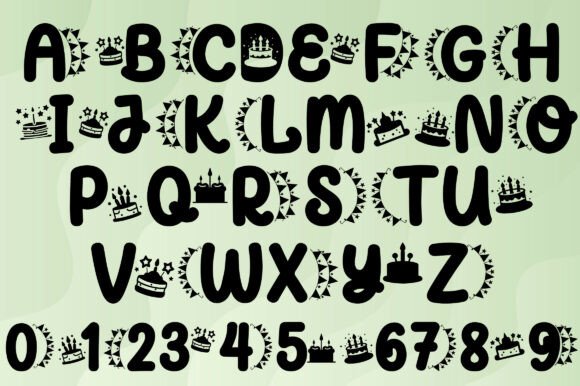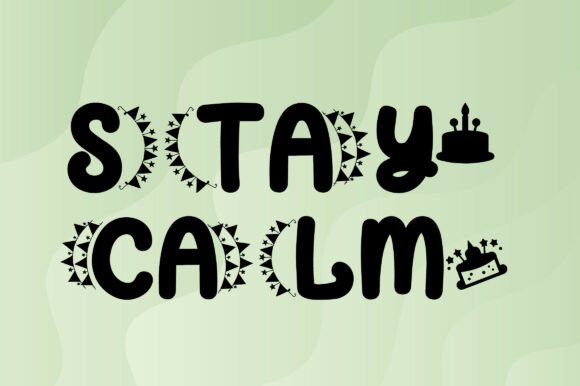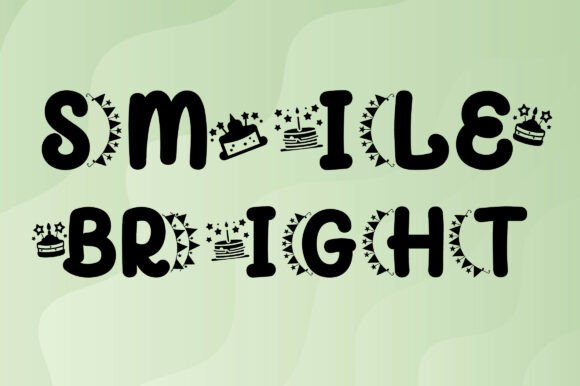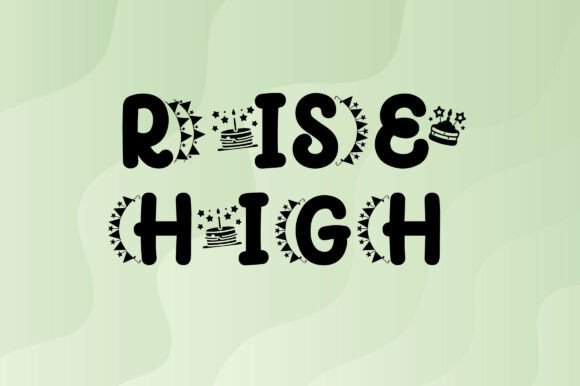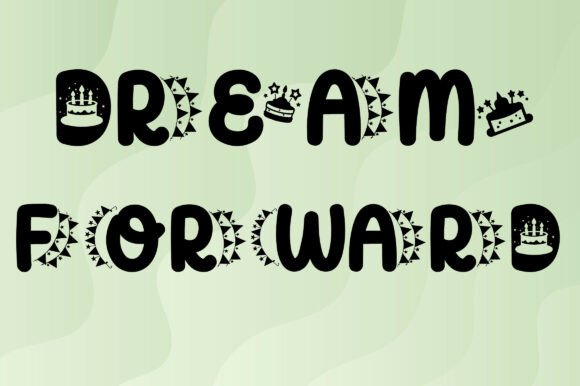
Introducing Annann Font: The Ultimate Decorative Birthday Party Font
Are you looking for a font that can add a touch of fun and festivity to your creative projects? Look no further than Annann Font, a playful and decorative typeface inspired by birthday celebrations, party decorations, cakes, and hanging party banners. This cheerful font is perfect for designers and crafters who want to bring joy, color, and excitement to their designs.
What is Annann Font?
Annann Font is a decorative birthday party font that features uppercase English letters A–Z and numbers 0–9. Its playful style is reminiscent of party decorations, cakes, and hanging banners, making it the perfect addition to any birthday-themed project. Whether you’re creating birthday invitations, party signs, cake toppers, posters, packaging, or social media graphics, Annann Font is sure to bring a happy party vibe to your designs.
Key Features of Annann Font
- Playful and Decorative Style: Annann Font features a unique and playful style that’s perfect for birthday-themed projects.
- Uppercase English Letters and Numbers: The font includes uppercase English letters A–Z and numbers 0–9, providing endless creative possibilities.
- Cheerful Personality: Annann Font brings a cheerful personality to your designs, making them stand out with a happy party vibe.
- Endless Creative Possibilities: With Annann Font, you can create a wide range of designs, from birthday invitations and party signs to cake toppers and social media graphics.
Uses for Annann Font
Annann Font is perfect for a variety of creative projects, including:
- Birthday Invitations: Create custom birthday invitations that set the tone for a fun and festive celebration.
- Party Signs: Design eye-catching party signs that will grab attention and add to the excitement of the celebration.
- Cake Toppers: Add a personal touch to cake toppers with Annann Font’s playful and decorative style.
- Posters: Create colorful posters that will promote a party or event and leave a lasting impression.
- Packaging: Add a touch of fun and festivity to packaging with Annann Font’s cheerful personality.
- Social Media Graphics: Create engaging social media graphics that will stand out and add to the excitement of a celebration.
Why Choose Annann Font?
There are many reasons why Annann Font is the perfect choice for designers and crafters, including:
- Unique and Playful Style: Annann Font features a unique and playful style that’s sure to add a touch of fun and festivity to your designs.
- Endless Creative Possibilities: With Annann Font, you can create a wide range of designs, from simple birthday invitations to complex social media graphics.
- High-Quality Design: The font is designed with high-quality and clarity in mind, ensuring that your designs will look great in any format.
Annann Font is a fun and festive decorative birthday party font that’s perfect for designers and crafters who want to add a touch of joy, color, and excitement to their creative projects. With its playful style, uppercase English letters and numbers, and cheerful personality, Annann Font is sure to bring a happy party vibe to any design. Whether you’re creating birthday invitations, party signs, cake toppers, posters, packaging, or social media graphics, Annann Font is the perfect choice.
Get Ready to Celebrate with Annann Font!
So why wait? Get ready to celebrate with Annann Font and bring a touch of fun and festivity to your designs. With its endless creative possibilities and high-quality design, Annann Font is the perfect addition to any creative project.